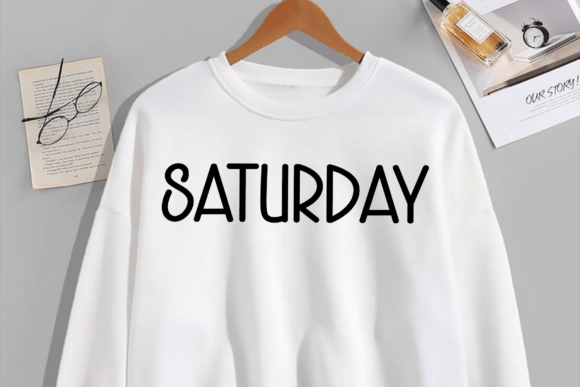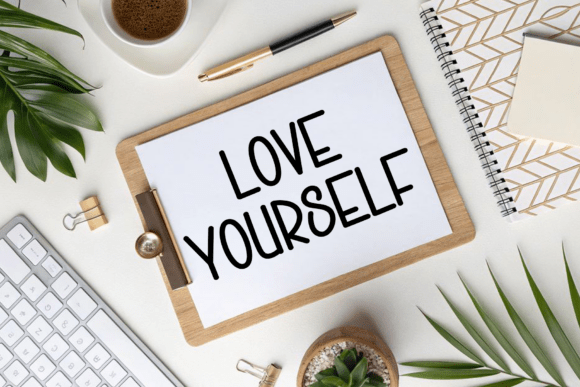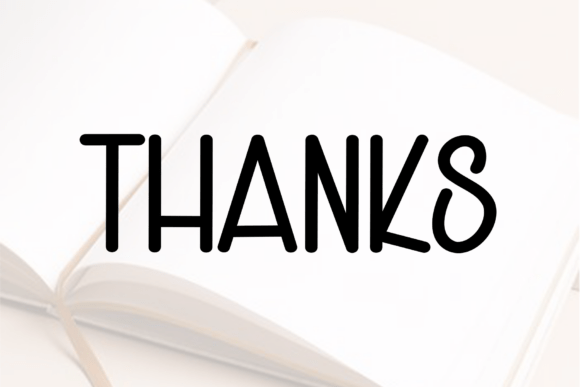
Introducing Book Signature Font: A Playful and Unique Addition to Your Design Library
In the world of typography, few fonts manage to strike a balance between playfulness and readability. Book Signature Font is one such gem that brings a refreshing, handwritten aesthetic to the table. This wonderfully playful and unique font is designed to add an authentic, casual, and friendly personality to any design that needs a relaxed touch. Whether you’re a designer, crafter, or simply someone looking for a font that exudes warmth and approachability, Book Signature Font is an excellent choice.
A Versatile and Readable Font
Book Signature Font boasts a delightful balance of readability and lighthearted character, making it an ideal choice for a wide range of design projects. Its clean, smooth lines and consistent weight mimic the look of a marker or felt-tip pen, giving it a distinctly personal and human feel. This font is particularly well-suited for children’s content, relaxed branding, greeting cards, and classroom materials where a genuine, personal touch is key.
Perfect for Casual and Approachable Designs
The Book Signature typeface excels in environments where formality is set aside for approachability. It’s an excellent choice for blog titles, apparel design, or personal journals, where a friendly and inviting tone is essential. The simple, all-caps or mixed-case structure ensures versatility across various sizes, making it easy to use in a variety of contexts. Whether you’re designing a logo, a brochure, or a social media post, Book Signature Font is sure to bring a touch of warmth and personality to your work.
Key Features of Book Signature Font
- Playful and unique design: Book Signature Font features a wonderfully playful and unique design that sets it apart from more traditional fonts.
- Clear, handwritten aesthetic: The font boasts a clear, handwritten aesthetic that brings an authentic, casual, and friendly personality to any design.
- Delightful balance of readability and lighthearted character: Book Signature Font strikes a perfect balance between readability and lighthearted character, making it easy to read and visually appealing.
- Clean, smooth lines and consistent weight: The font features clean, smooth lines and a consistent weight that mimics the look of a marker or felt-tip pen.
- Versatile and adaptable: Book Signature Font is highly versatile and can be used in a wide range of design projects, from children’s content to apparel design.
Why Choose Book Signature Font?
So, why choose Book Signature Font for your next design project? Here are just a few compelling reasons:
- Add a personal touch: Book Signature Font brings a distinctly personal and human feel to any design, making it perfect for projects where a genuine, personal touch is key.
- Stand out from the crowd: The font’s unique and playful design ensures that your work will stand out from the crowd and grab attention.
- Easy to read and use: Book Signature Font is highly readable and easy to use, making it perfect for designers and crafters of all skill levels.
- Highly versatile: The font is highly versatile and can be used in a wide range of design projects, from print materials to digital content.
In conclusion, Book Signature Font is a wonderfully playful and unique addition to any design library. Its clear, handwritten aesthetic, delightful balance of readability and lighthearted character, and clean, smooth lines make it an excellent choice for a wide range of design projects. Whether you’re a designer, crafter, or simply someone looking for a font that exudes warmth and approachability, Book Signature Font is sure to become a favorite. So why not give it a try and see how it can bring a touch of personality and whimsy to your next design project?